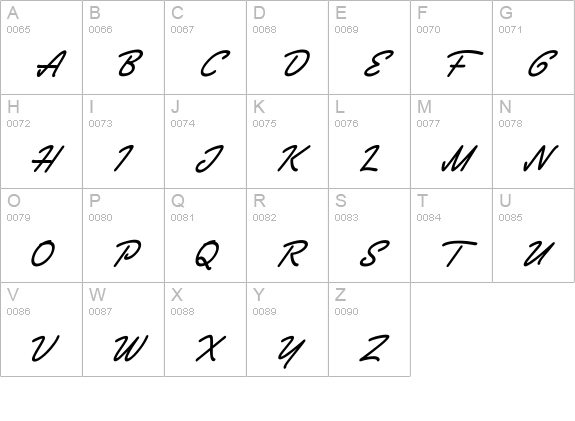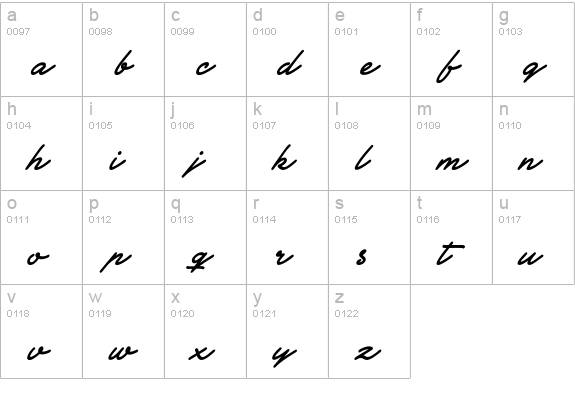
Society Editor Personal Use Font Details
Introducing Society Editor Personal Use font, a delightful and sophisticated typeface that exudes elegance and charm. This font is perfect for those seeking to add a touch of class to their designs, whether it be for invitations, stationery, or branding projects. With its graceful curves and timeless appeal, Society Editor Personal Use font captures the essence of traditional calligraphy while adding a modern twist. Each letter is carefully crafted to create a seamless flow and harmonious balance, making it a true standout in any design. One of the best things about Society Editor Personal Use font is that it is absolutely free. Yes, you read that right - this stunning font can be downloaded at no cost from FontsMarket.com. Now you can elevate your designs without breaking the bank. Whether you're a seasoned designer or just starting out, Society Editor Personal Use font is incredibly versatile and easy to work with. It pairs beautifully with both serif and sans-serif fonts, allowing you to create eye-catching combinations that will make your designs truly stand out. So why wait? Don't miss out on the opportunity to enhance your projects with the timeless beauty of Society Editor Personal Use font. Download it for free today at FontsMarket.com and let your creativity flourish.